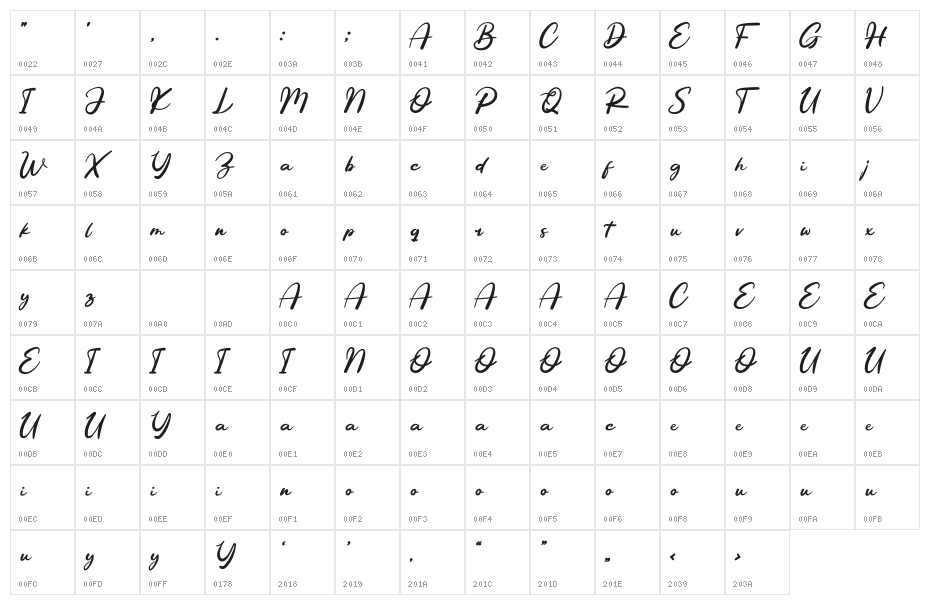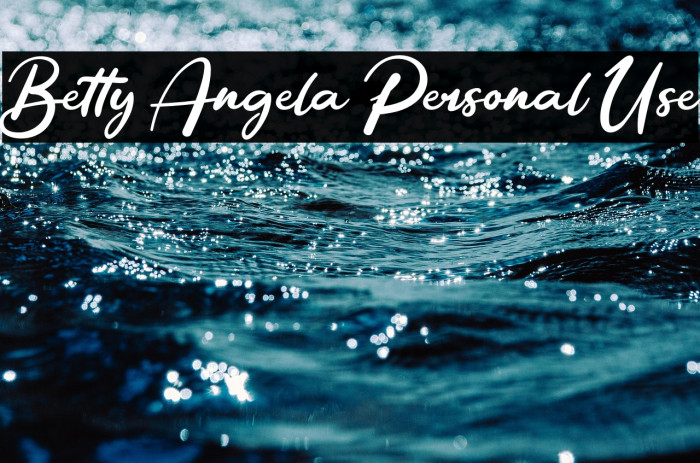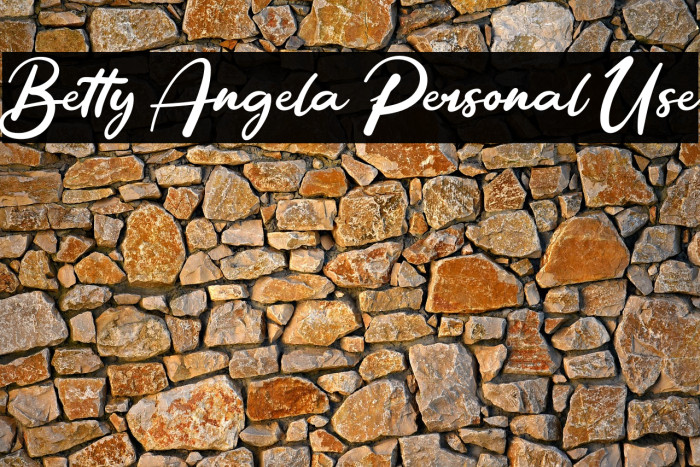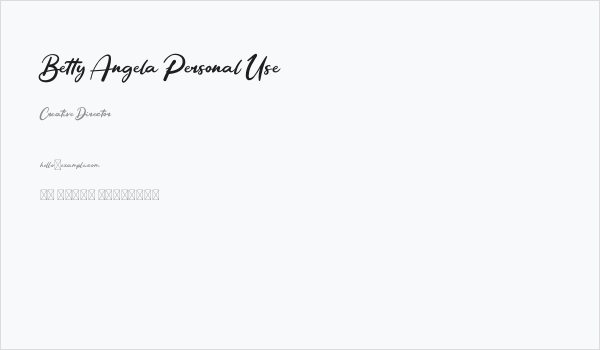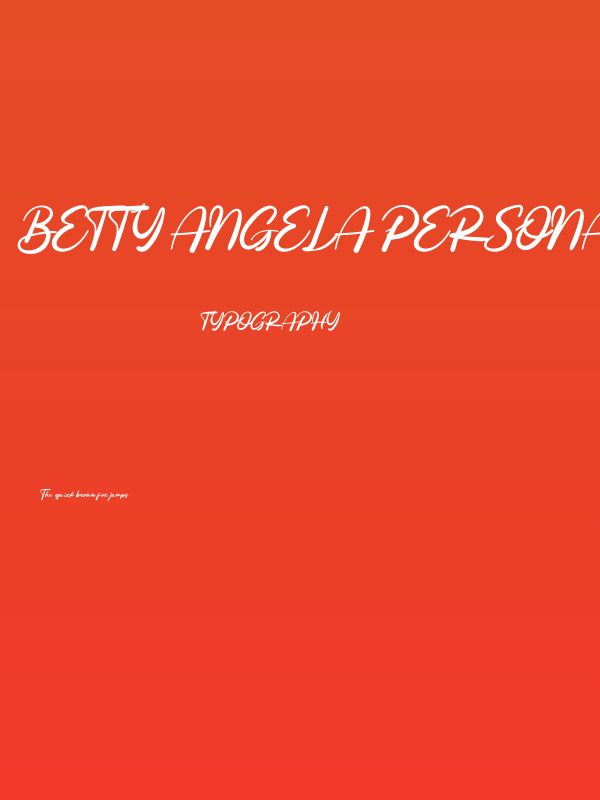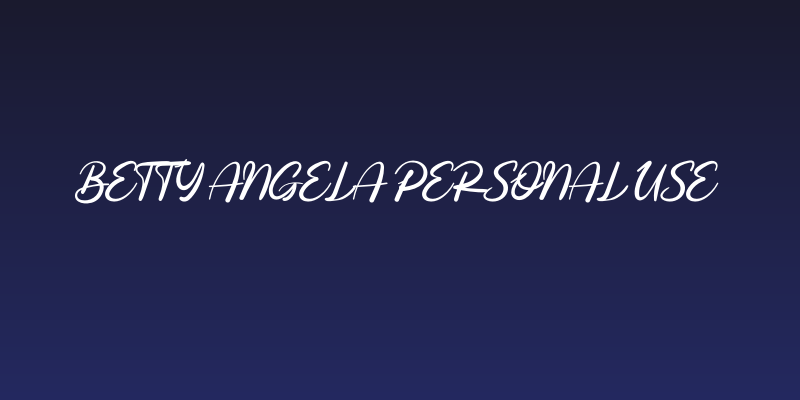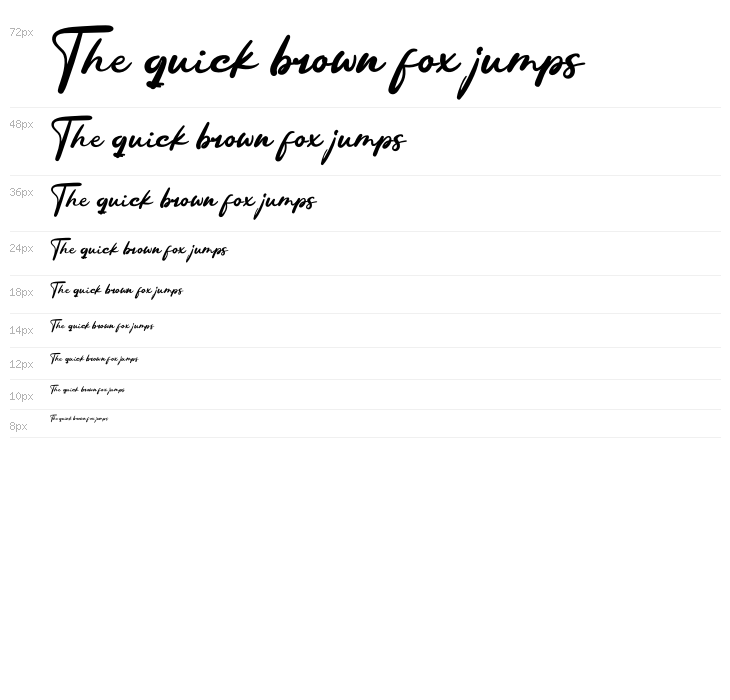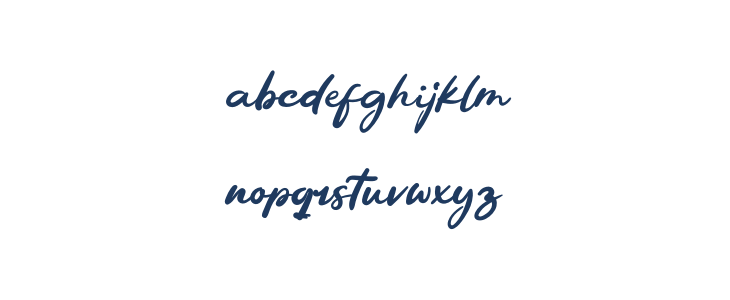
Betty Angela Personal Use Font
Betty Angela Personal Use Description
This font features a flowing, cursive style that exudes elegance and sophistication. The uppercase letters are tall and slightly slanted, with smooth, sweeping curves that give a sense of fluidity and grace. The lowercase letters maintain a consistent style, with rounded forms and connected strokes that enhance the script-like appearance. The overall design is balanced, with a harmonious blend of thick and thin lines that create a dynamic contrast. This font is ideal for projects that require a personal, handwritten touch, such as invitations, greeting cards, and branding materials.
| Overall Style | Elegant, Handwritten |
| Proposed Projects | Ideal for wedding invitations, personal branding, greeting cards, and elegant logos. |